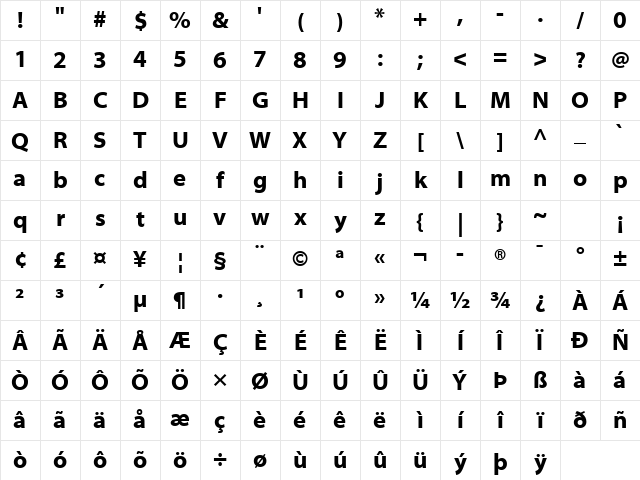
Complete Myriad Web Pro Bold glyph index. Displaying only characters natively supported by Myriad Web Pro Bold font.
Myriad Web Pro is a composed and adaptable typeface that performs quietly and consistently across a wide range of design contexts. Its bold stroke weight gives it real presence on the page.